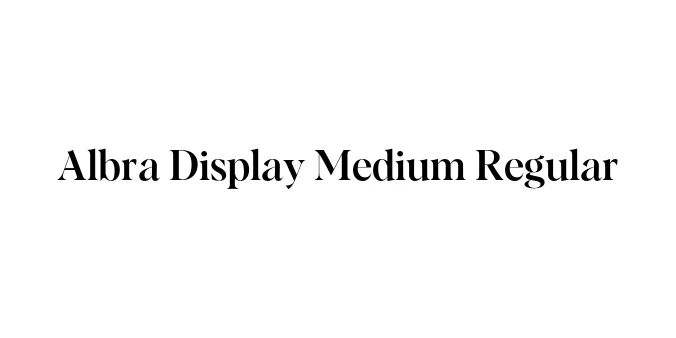
Albra Display Medium Regular
Designed by BumBumType (Valerio Dell’Edera)
Albra Display Medium Regular is a sophisticated high-contrast serif typeface designed by the BumBumType foundry. It represents a modern interpretation of classical serif proportions, blending timeless elegance with contemporary sharpness. The Display variant is specifically engineered for large-scale applications, featuring extreme thin-to-thick transitions and refined terminals that maintain their integrity in headlines and editorial layouts.
This font is part of the larger Albra collection, which has gained significant popularity in the worlds of high-fashion and luxury branding. Its medium weight offers a perfect balance between legibility and stylistic flair, making it an ideal choice for designers looking to convey authority and grace without the heaviness of a bold weight. The typeface's distinct character and versatile nature allow it to stand out in digital and print media alike.
Albra Display Medium Regular Best Uses
Perfect for magazine headlines and cover titles.
Ideal for high-end logos and premium product packaging.
Adds a sophisticated touch to landing pages and digital portfolios.
Suitable for wedding stationery and formal event announcements.